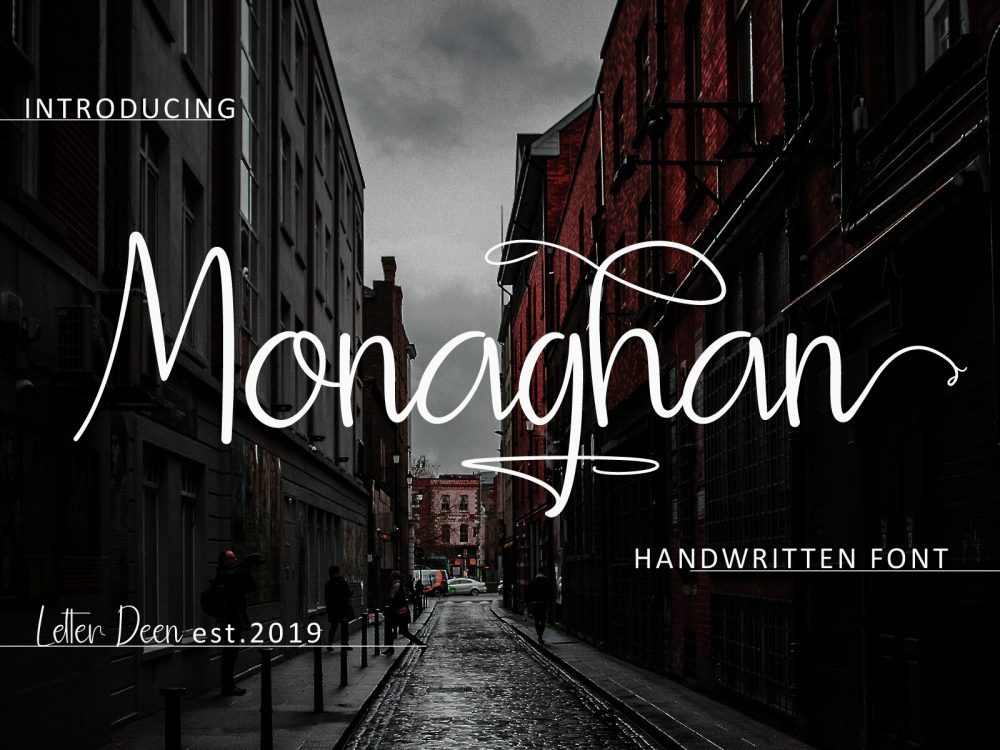
Monaghan Handlettering Font
Monaghan Handlettering Font is a modern handwritten typeface with elegant lines, beautiful and stylish curves that will help you create memorable designs for posters, greeting cards, branding, wedding invitations, flyers, prints, and more. If you wish to access more features and use them for commercial work please buy the full version.